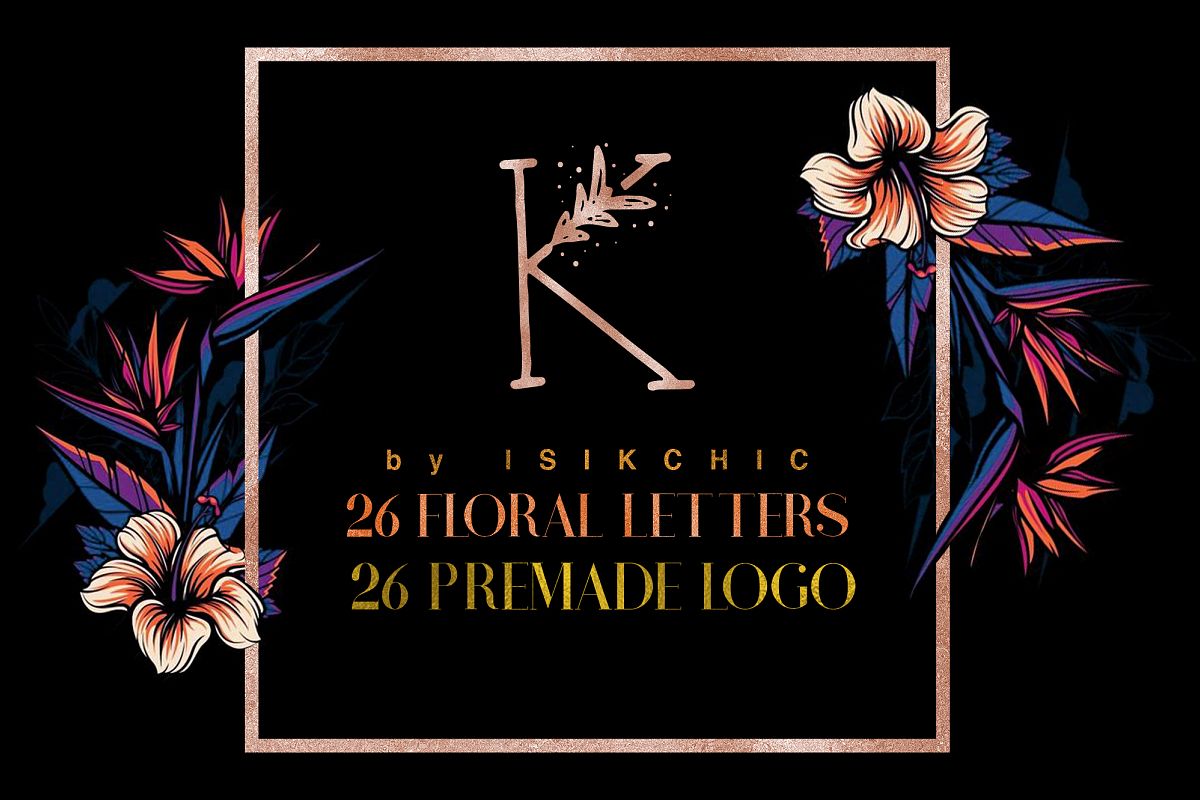
MINIMAL FLORAL LETTER AND LOGO KIT
Minimal Floral Letter and Logo Kit is a special and feminine Kit created to make your work easier in designing a logo.
Besides the hand-drawn floral elements sketched with the most attention, you will find 26 logos in which I used all the letters of the Alphabet in different designs.
After choosing the desired design, you can customise it with the letter of your name / brand and choose the right font from the PDF list prepared for you.